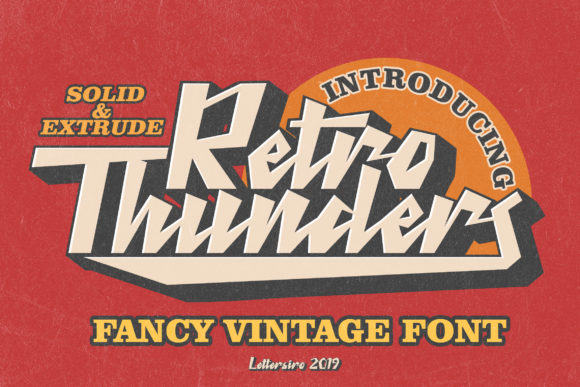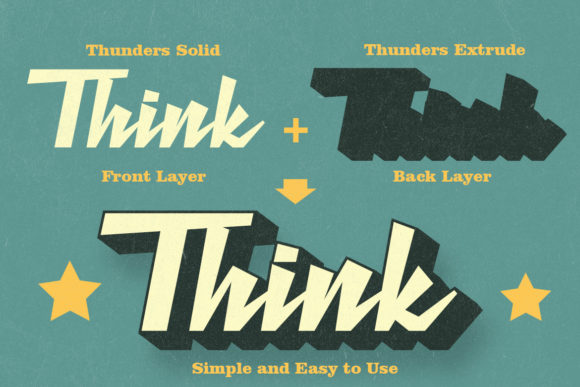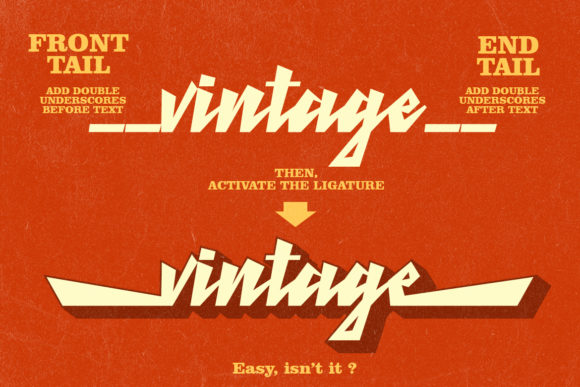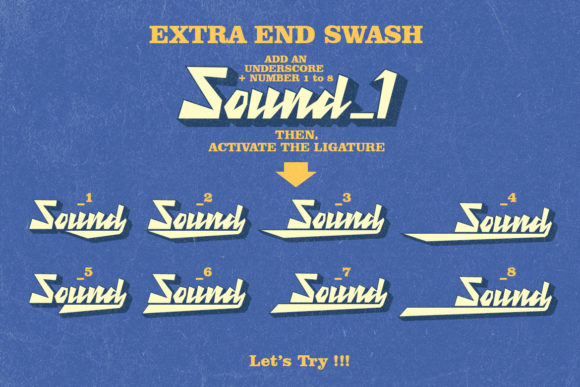
Retro Thunder Font: Bold Vintage Display Font for Posters & Logos
About the Retro Thunder Font
Get ready to be inspired by Retro Thunder Font, a fresh and dynamic typeface for modern creators. The Retro Thunder is an inspiring retro display font. It comes with a solid and extrude style, and is perfect for creating logos, posters, labels, clothing, music covers, and much more!
Retro Thunder excels as a headline font for projects requiring a bold, vintage aesthetic. It’s ideal for posters, branding materials for clothing lines or music labels, and packaging that demands a strong visual presence. However, its highly stylized nature makes it unsuitable for body text or UI elements where readability is paramount. Extended use could strain visual comprehension.
Its strong, retro personality pairs well with clean sans-serif fonts like Futura or Helvetica Neue for a balanced contrast. For a more vintage feel, consider pairing it with a serif font such as Garamond or Didot, using Retro Thunder for titles and the serif for supporting text. Avoid pairing it with other highly decorative or script fonts, which might create visual clutter.
The overall effect of Retro Thunder is energetic and nostalgic, suggesting a brand with a confident, retro-inspired identity. It works best in applications where a strong visual statement is desired and readability is less critical.